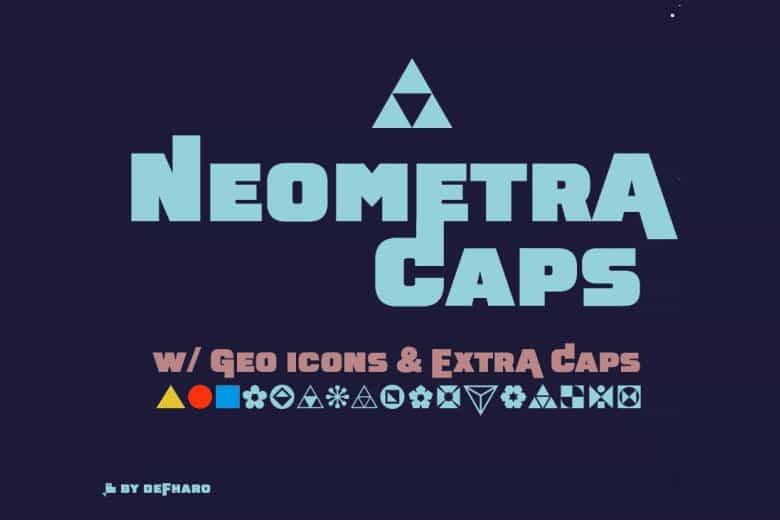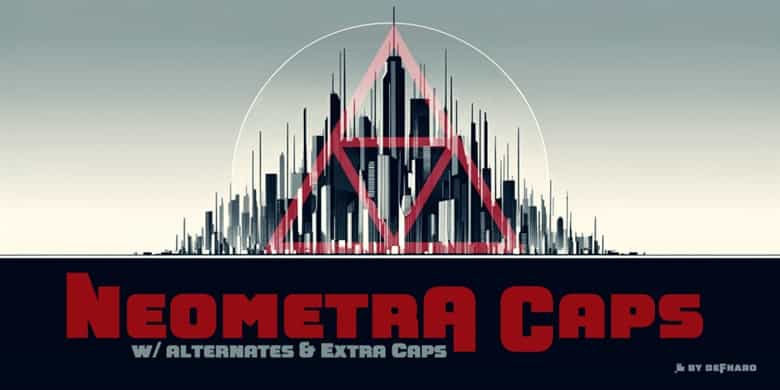
Neometra Caps are new members of sans serif fonts niche – thick and nearly square fonts intended for bright projects. Neometra has 784 glyphs, 31 geometric icons, 52 alternative capitals, multiple sets, numbers, and complex Open Type features facilitating easy readability besides being diverse in style perfect for titles, logos, packaging, etc.